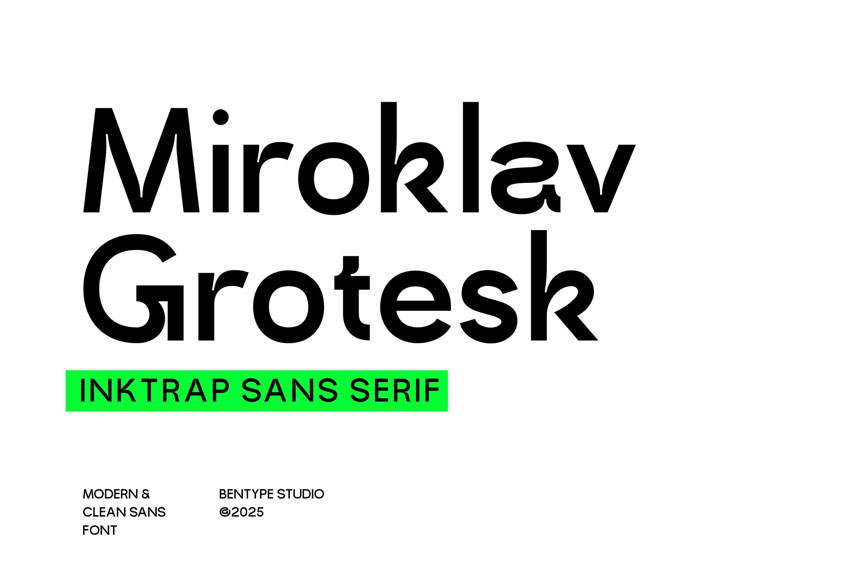
Miroklav Grotesk Font
Miroklav Grotesk Font is an Inktrap sans display font with several unique stems and joins. Despite their limitations in character set and resolution, pixel fonts remain popular among designers for their distinct visual appeal and nostalgic charm.
With its condensed style, this font is well-suited for various design needs, including displays, headlines, and banners.